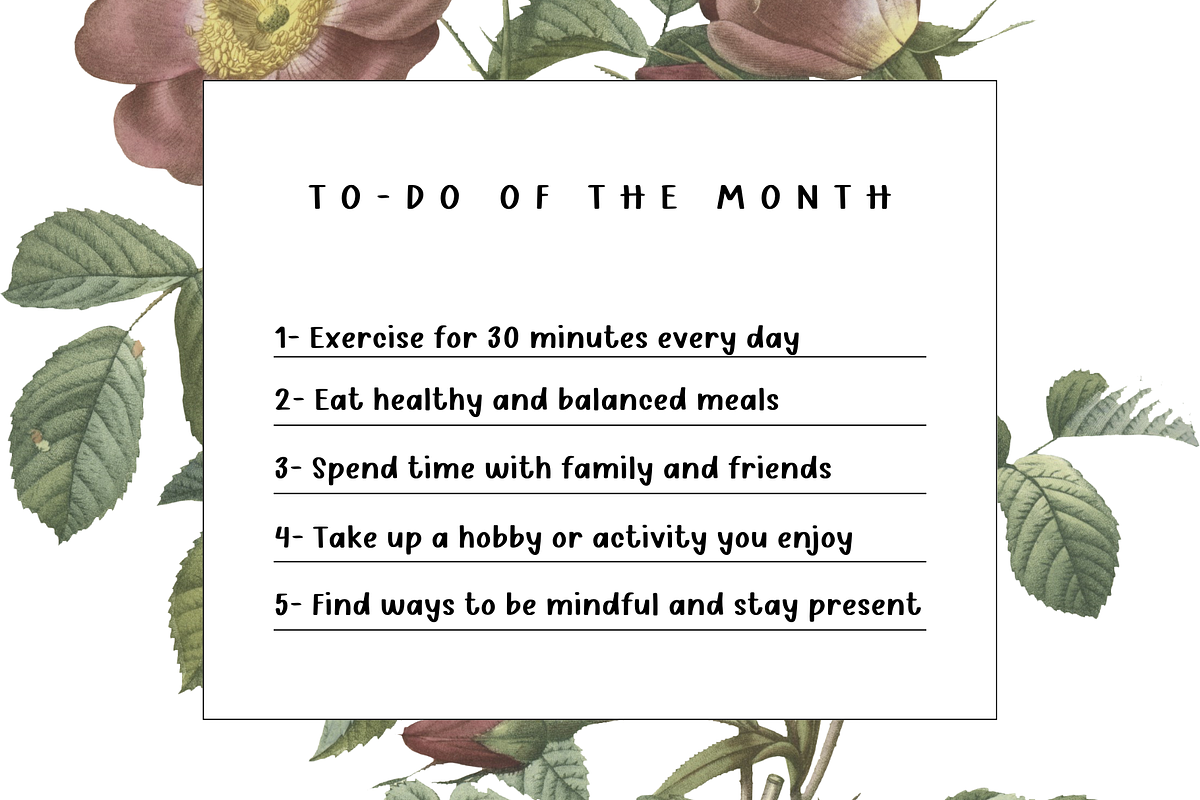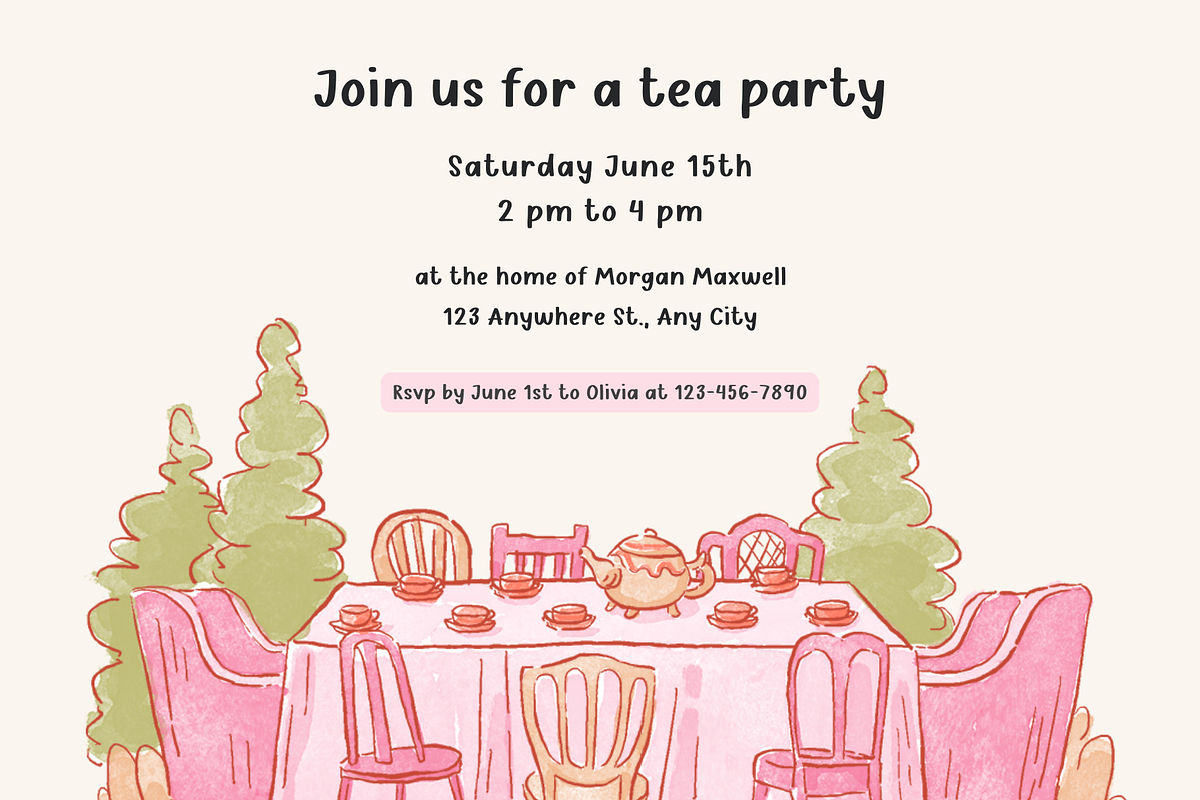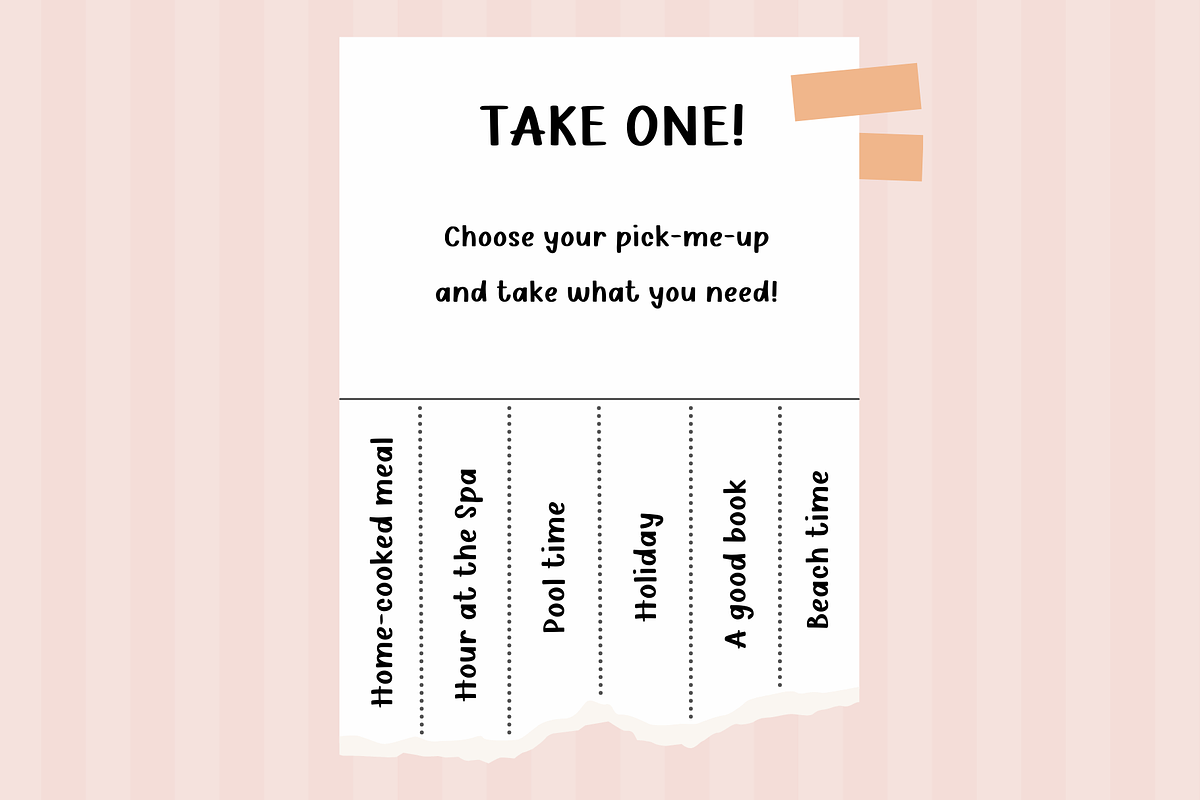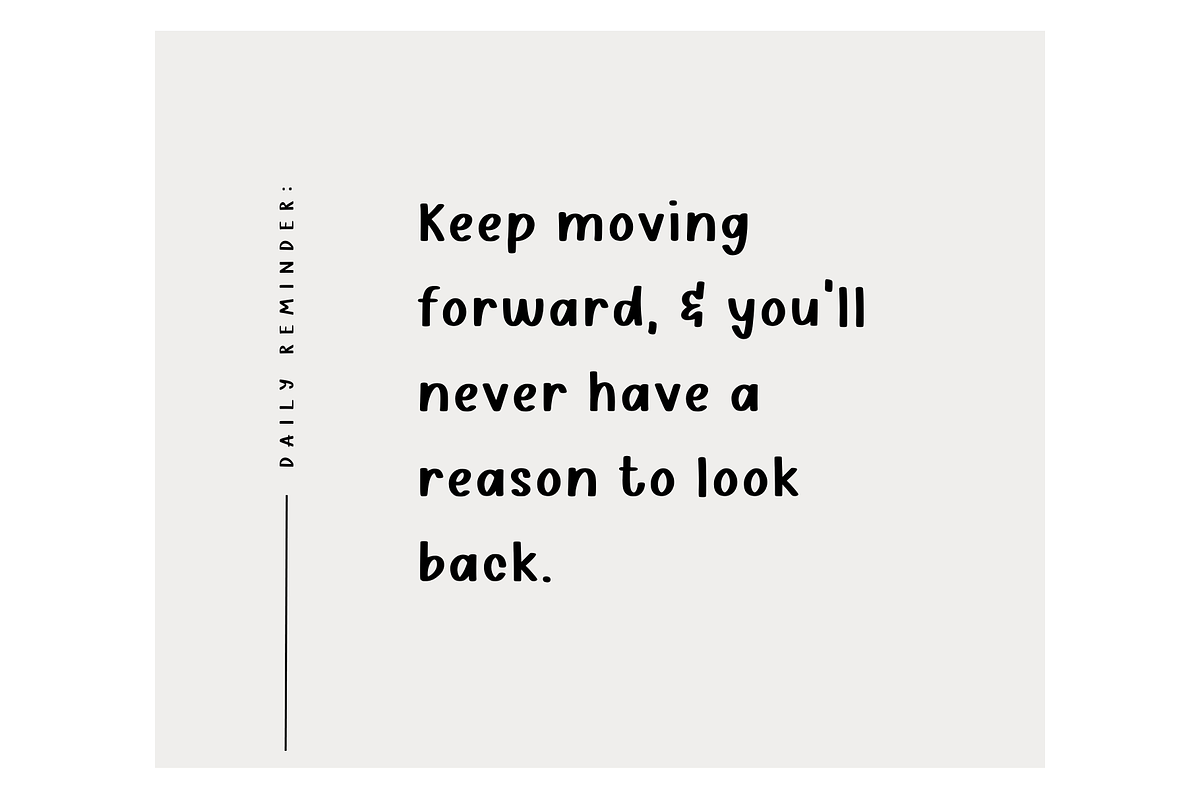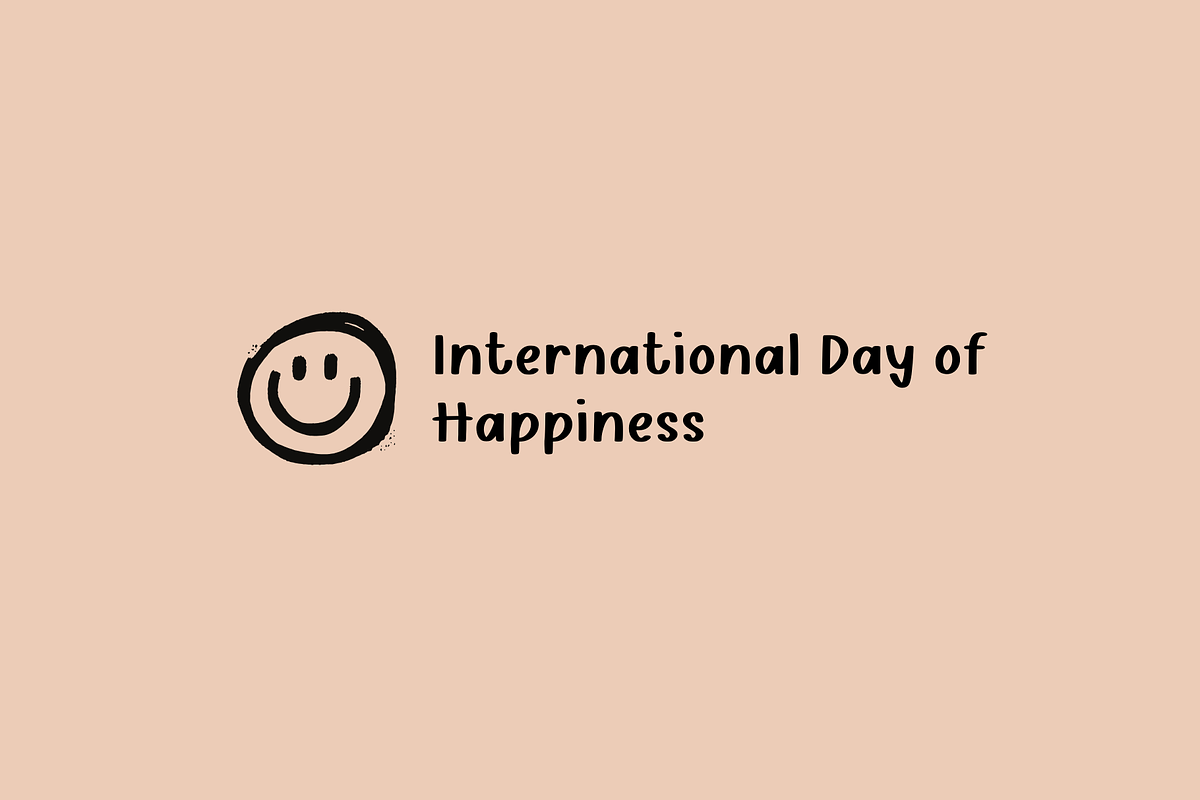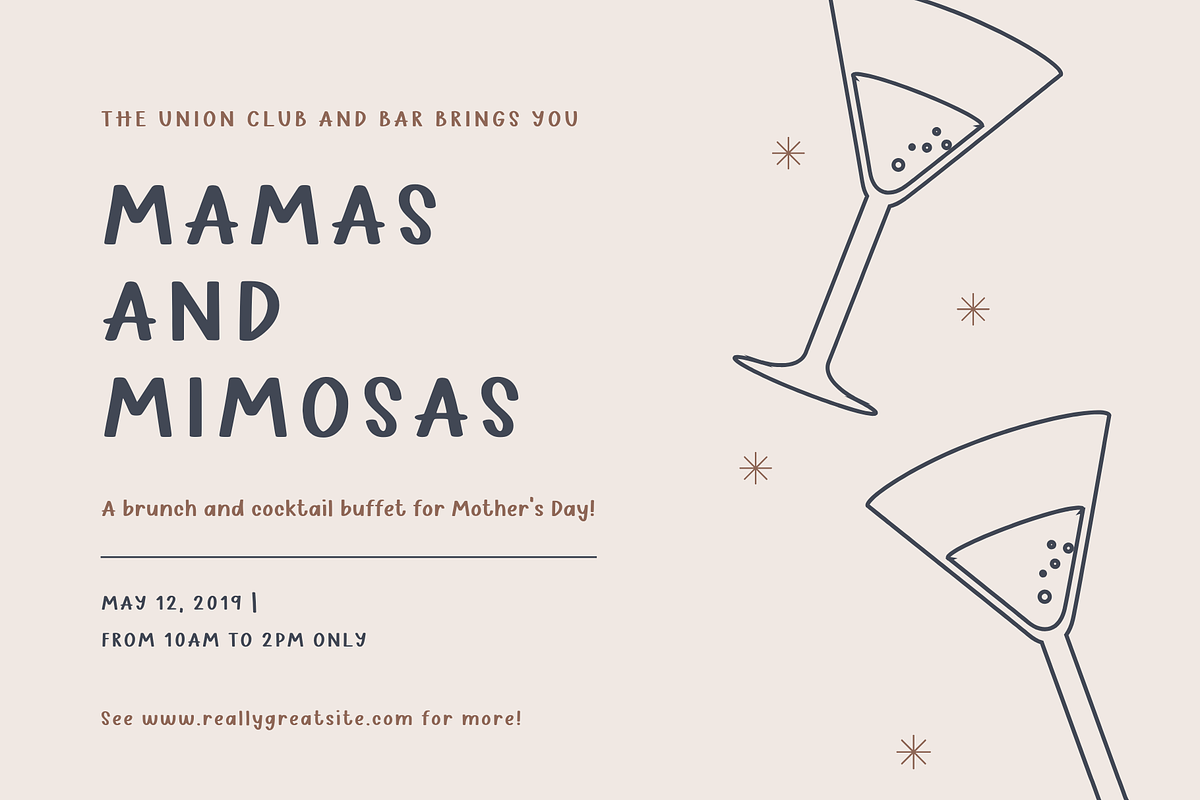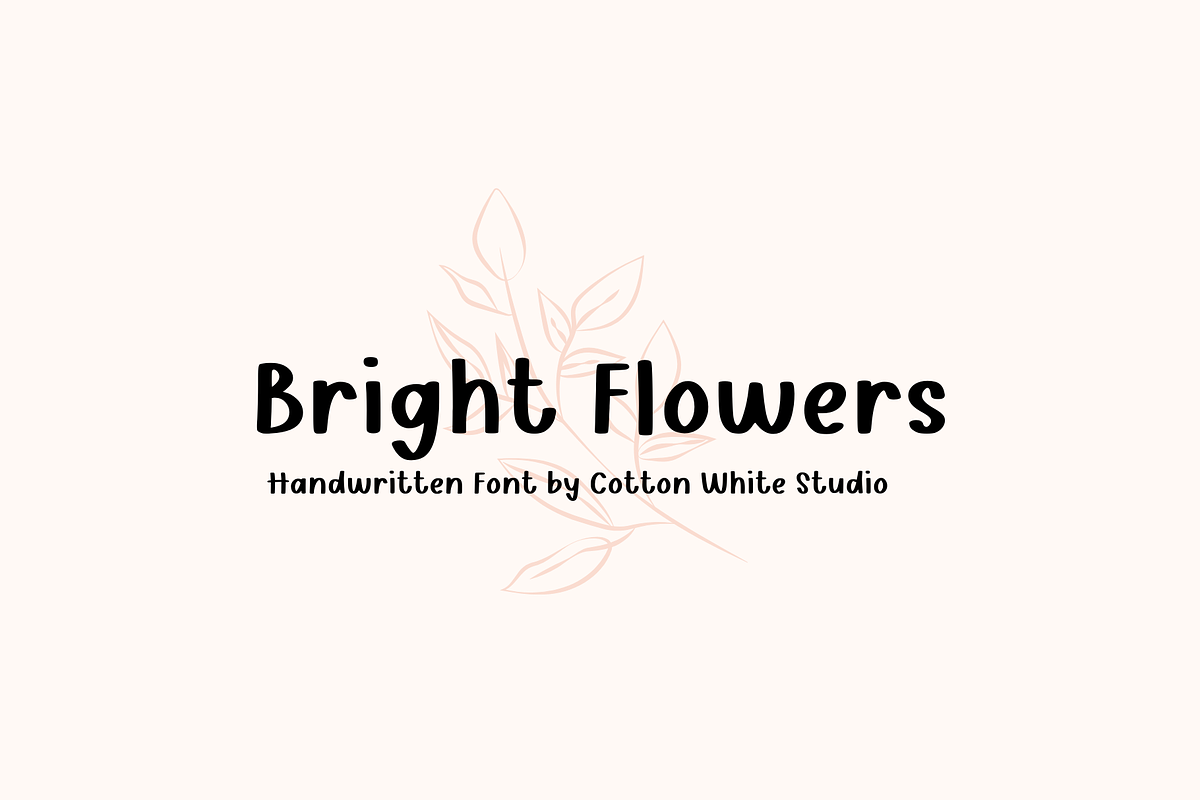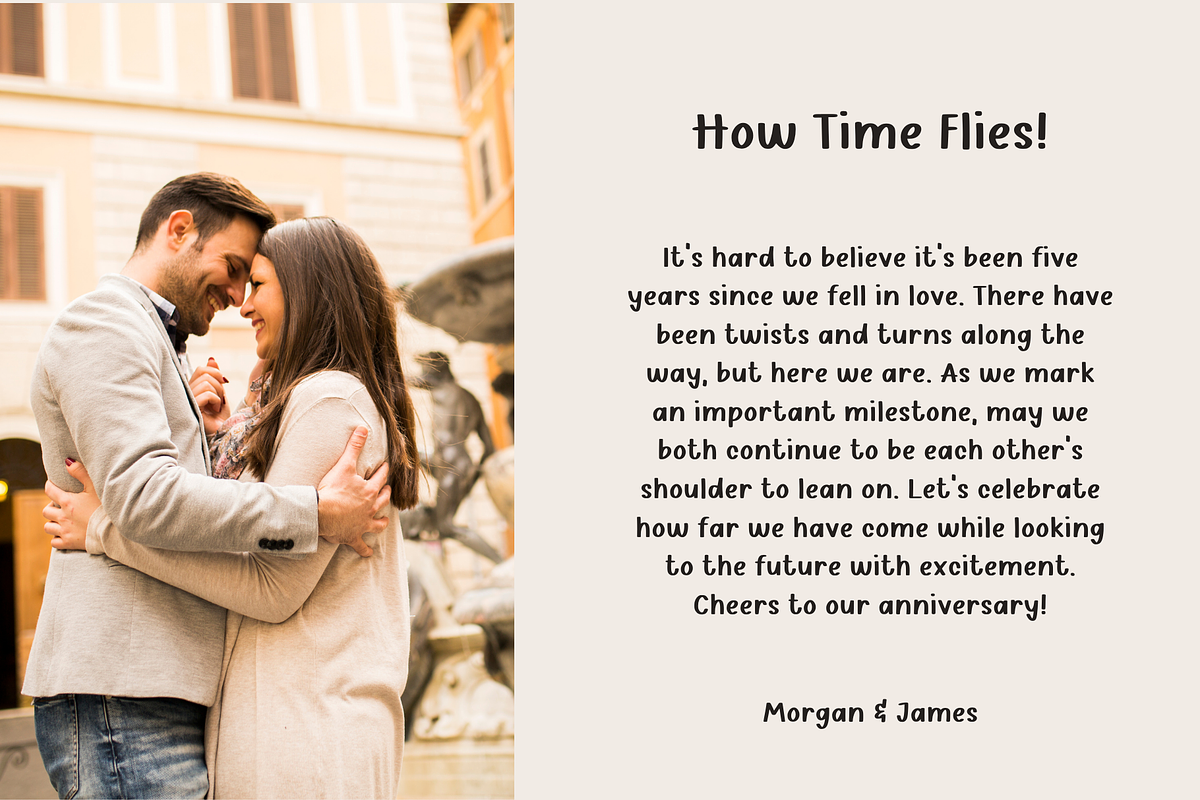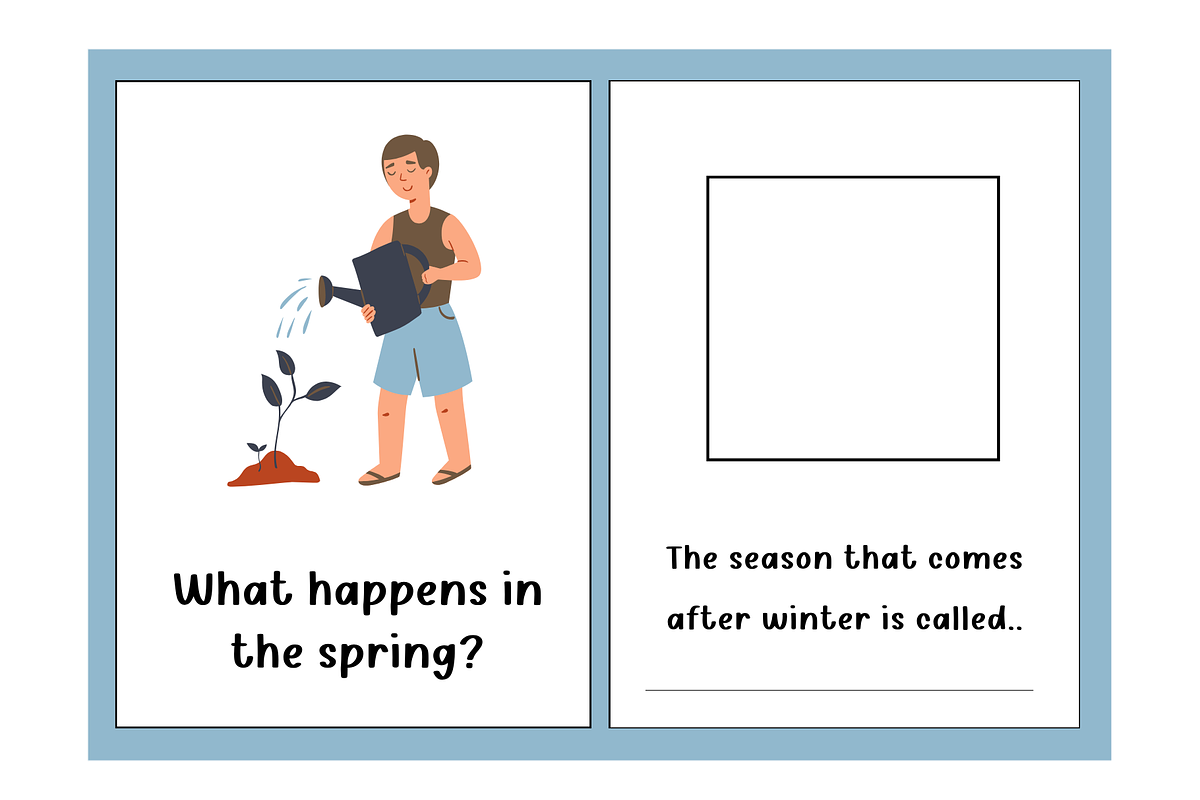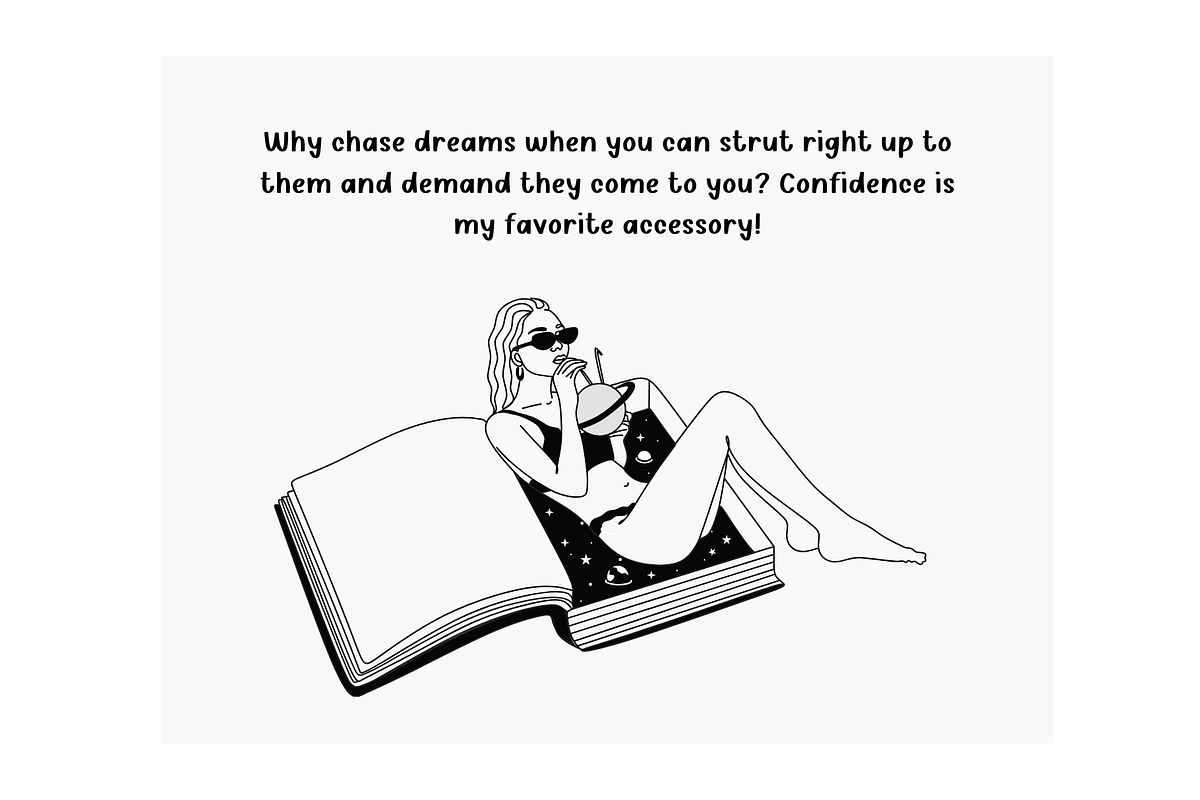
Bright Flowers
Unleash your creativity with our simple handwritten font! This charming typeface is designed to add a personal touch to your projects, making every word feel warm and inviting. Perfect for invitations, social media graphics, or any design that needs a hint of authenticity.